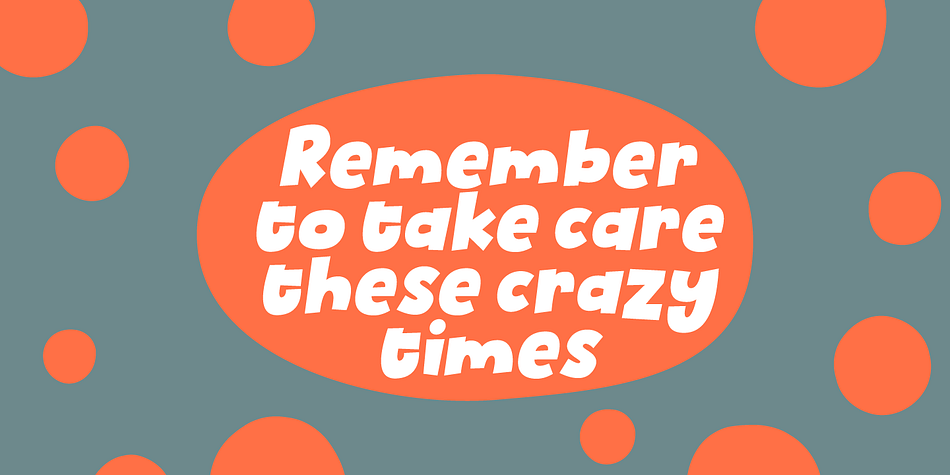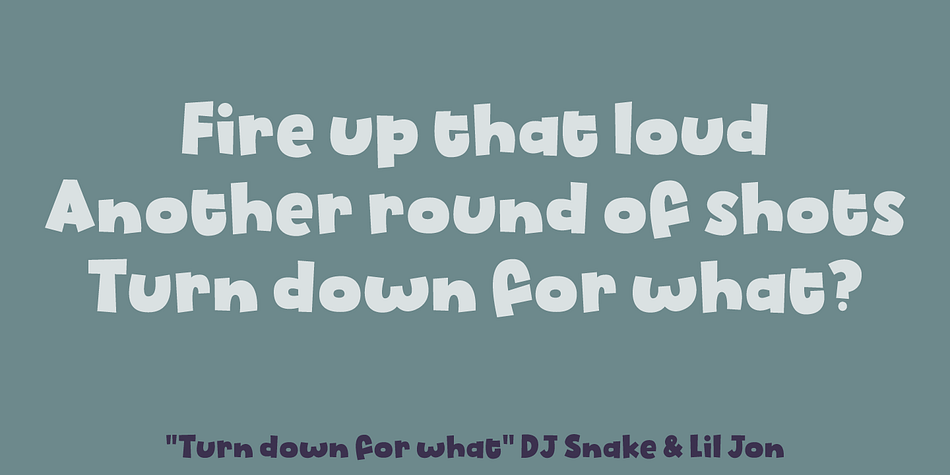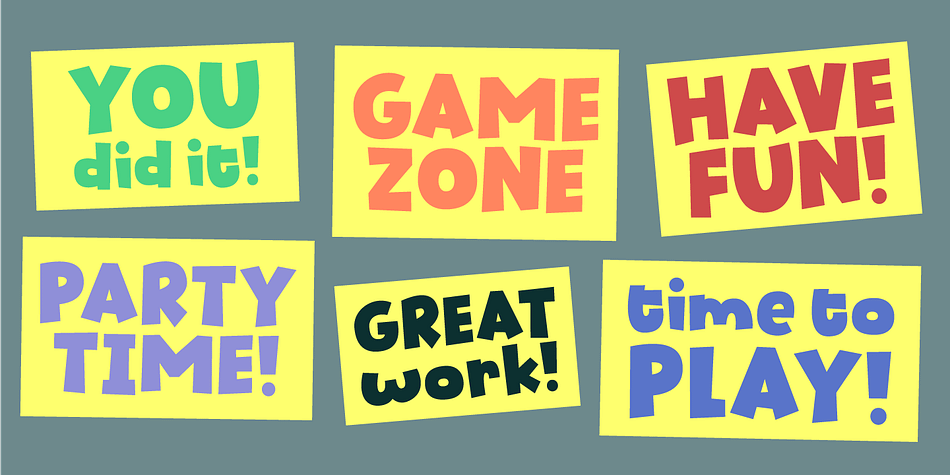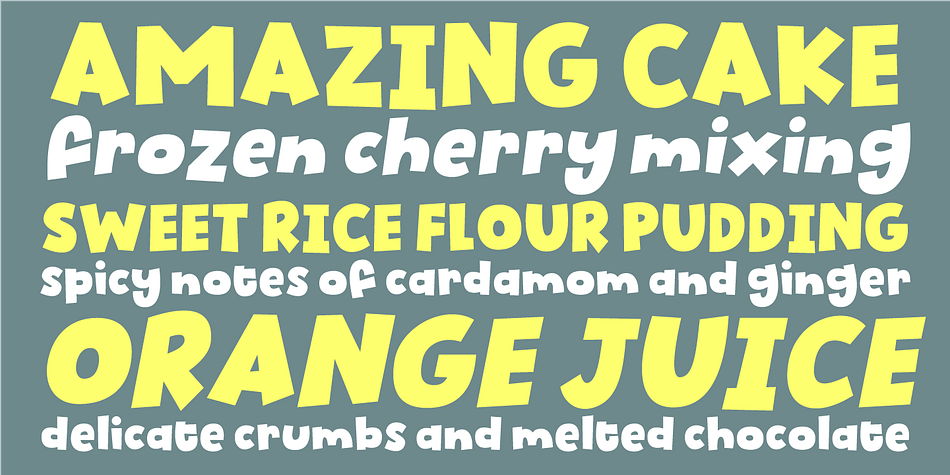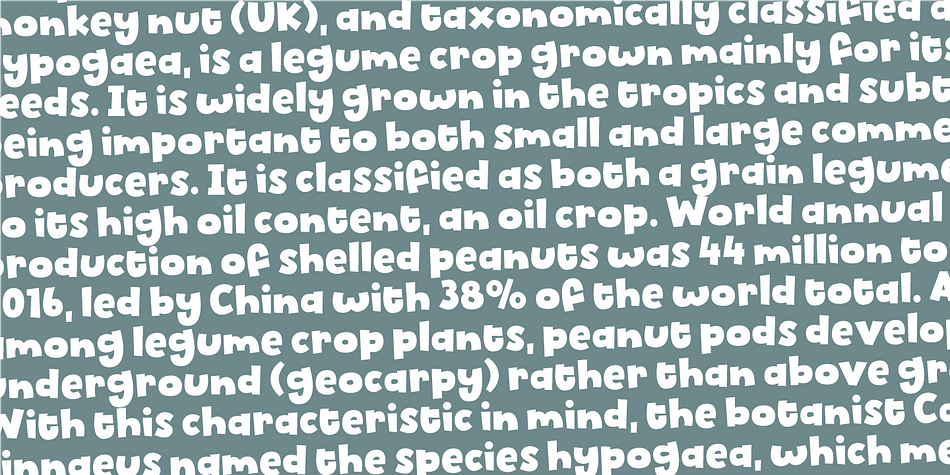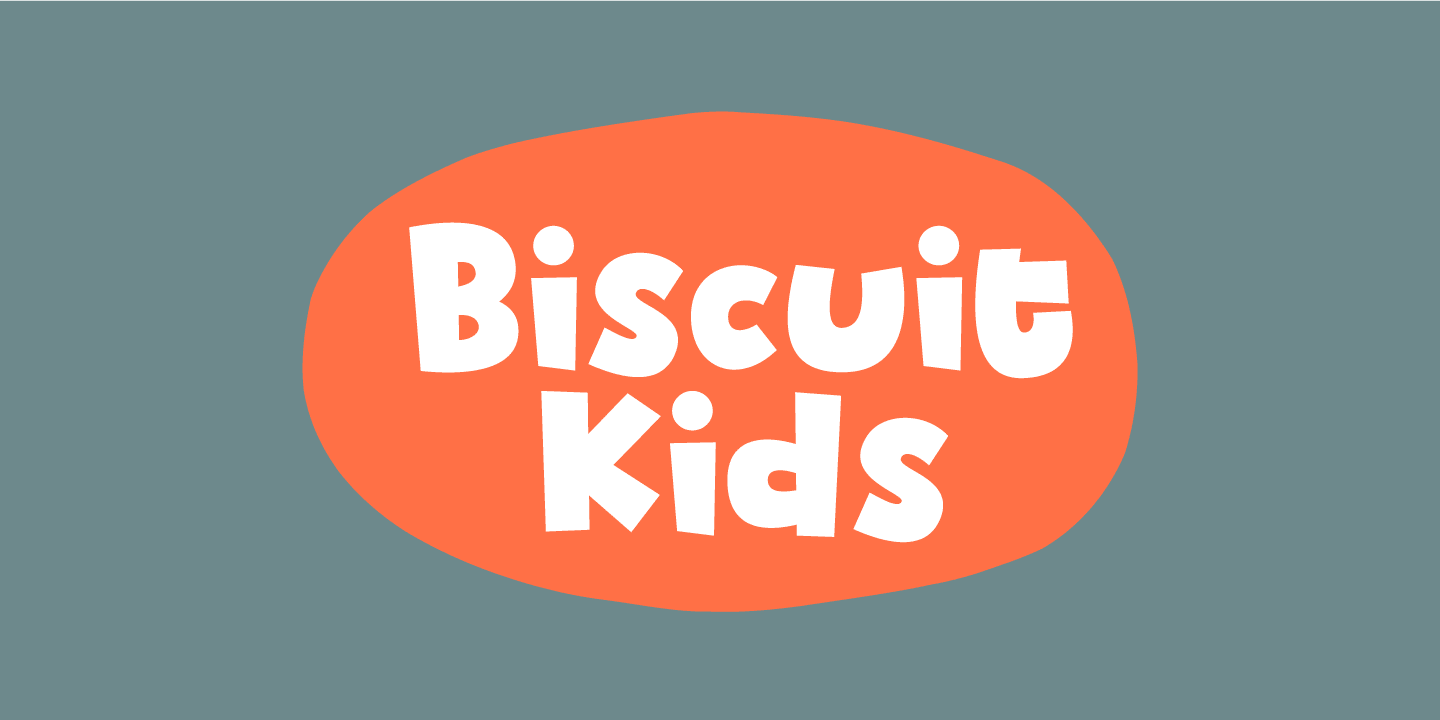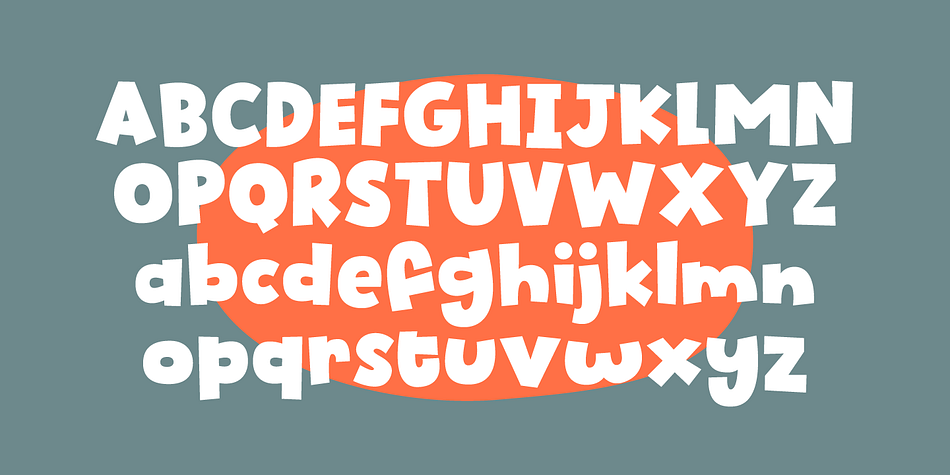
Designed by Jakob Fischer, Biscuit Kids is a hand display and kids font family. This typeface has two styles and was published by Pizzadude.dk.
The other day, a couple of kids at work (I work as a kindergarten teacher!) played this game where they were detectives. Not the usual detective, but someone who worked for cookies and biscuits! They called themselves The Biscuit Kids, and I knew instantly that I had to make a font with that name!
My Biscuit Kids font is a playful comic book font, but also suitable for anything that needs a fresh extra spicy attention!